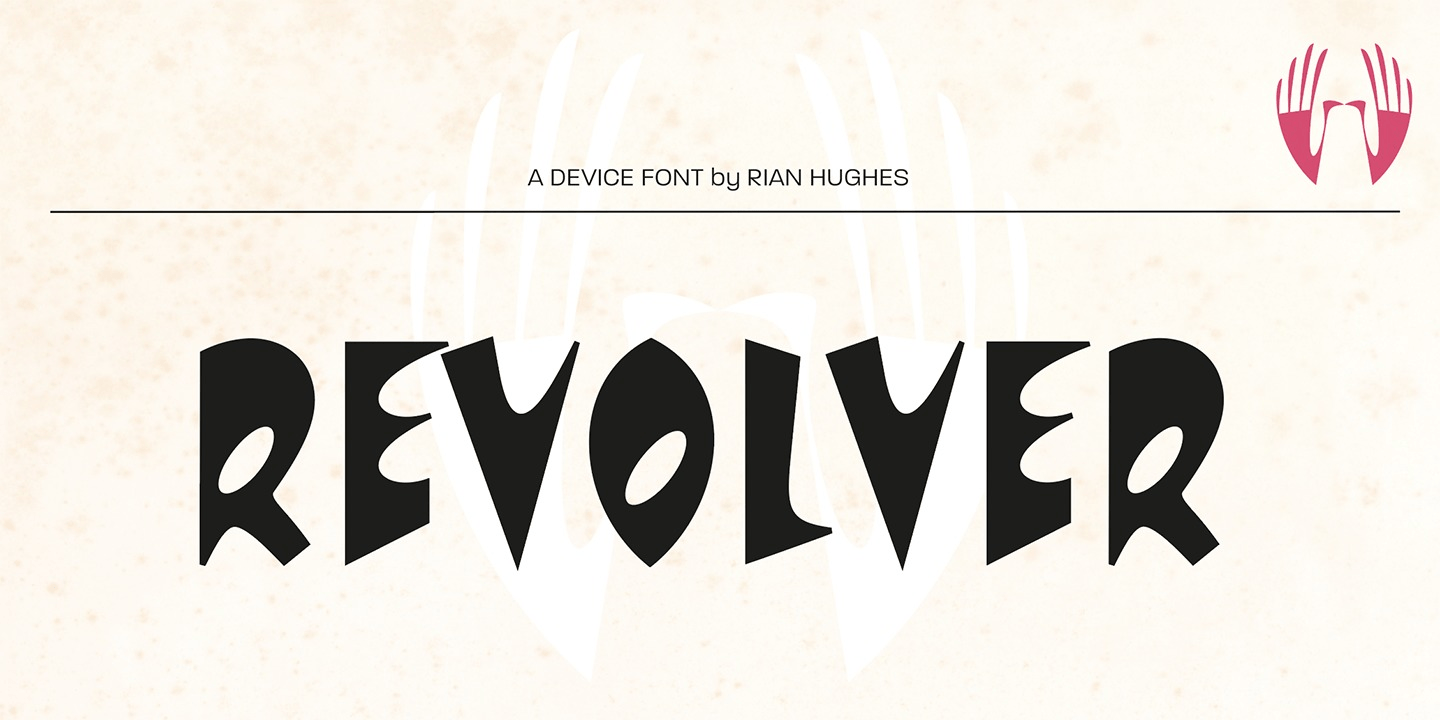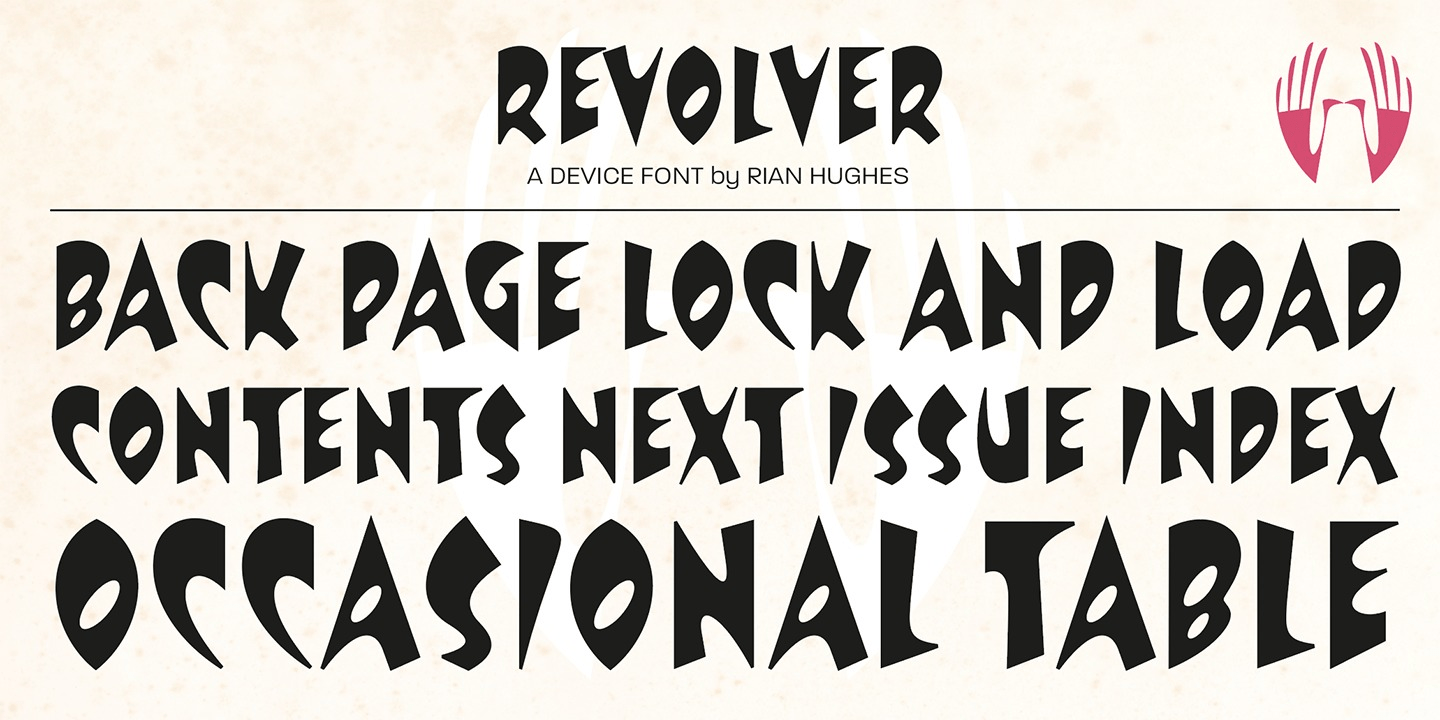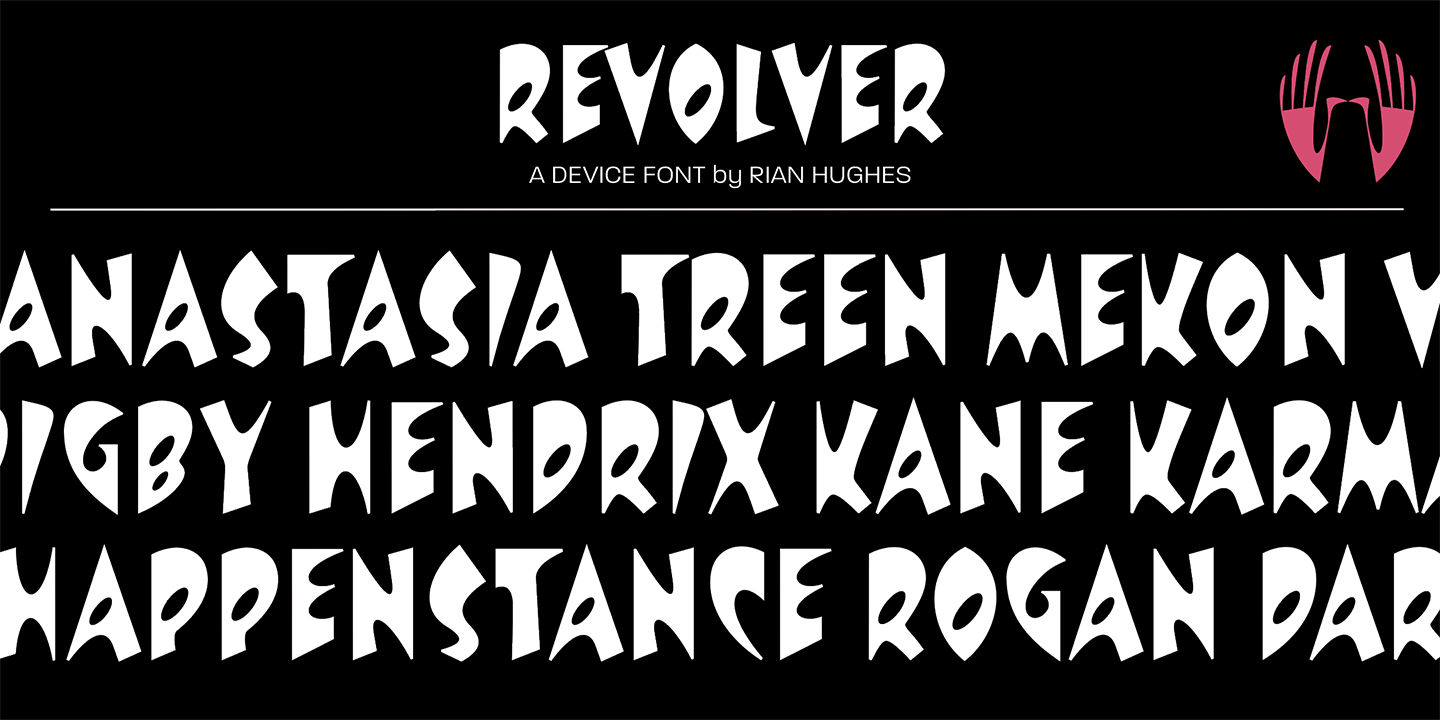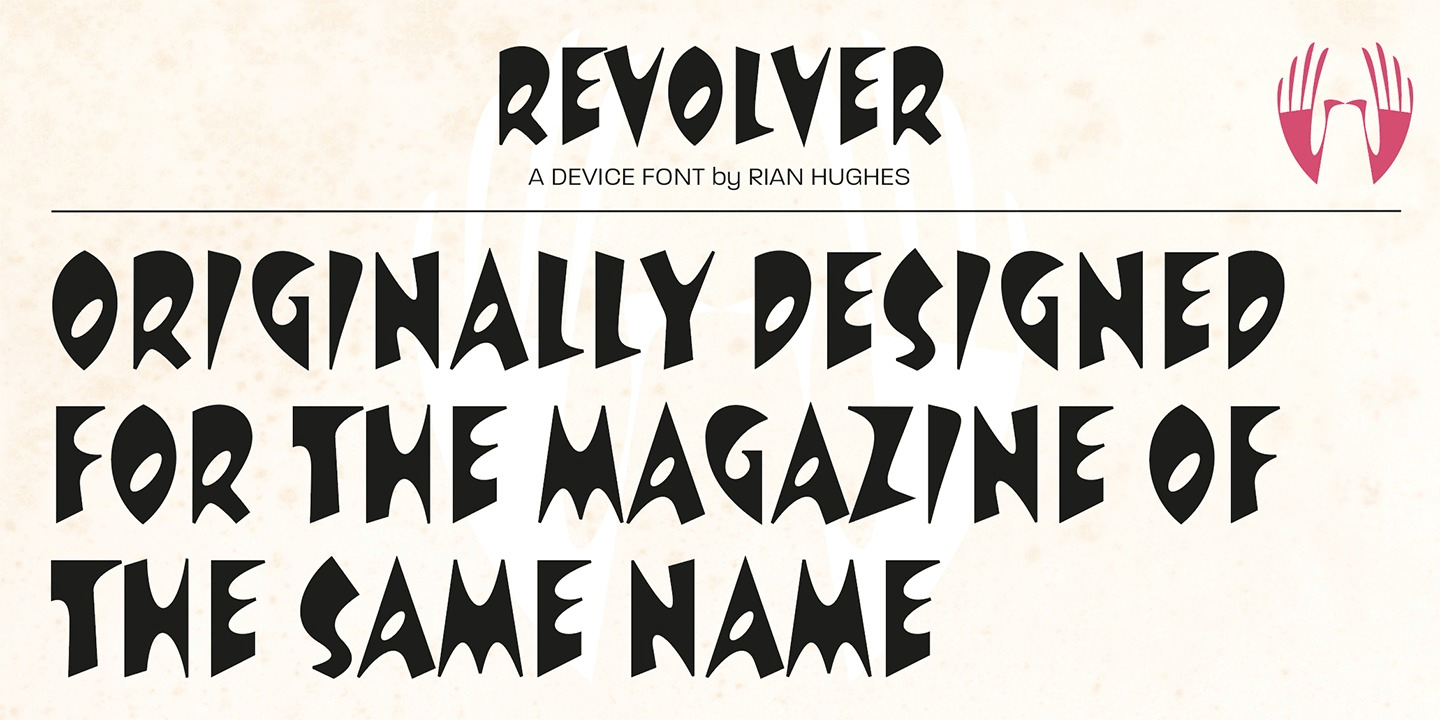
Revolver
Font Family by Device
Designed for the seminal comics magazine of the same name, Revolver was one of Rian Hughes? first typeface designs. Originally published as part of the FontFont range, it has now been remastered and includes full European glyph support and Opentype features.